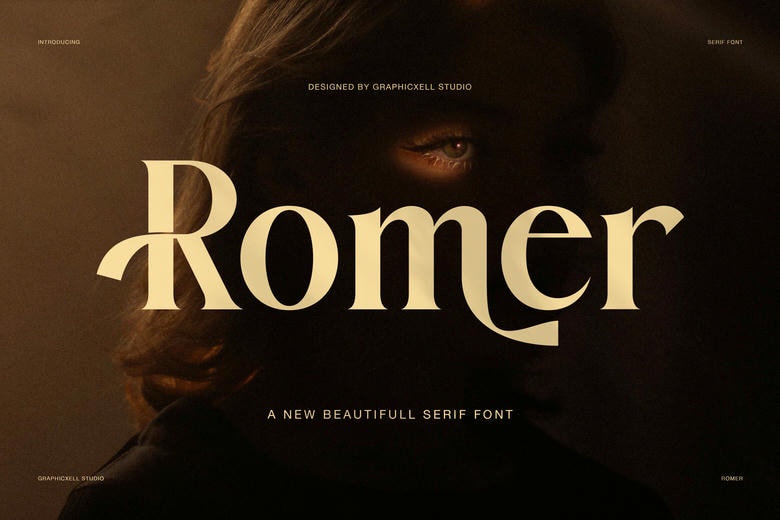
Romer Font
Romer is a serif font that feels calm, stylish, and modern. It combines classic serif shapes with subtle artistic touches, giving it a graceful, high-end look that works well for branding.
Romer Serif Font